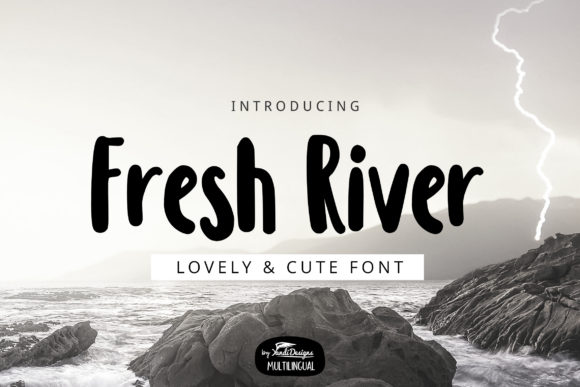
Introducing Fresh River Font: The Ultimate Urban Display Font
Are you tired of using the same old fonts in your designs? Look no further than Fresh River Font, a fun and urban styled display font that’s perfect for adding a touch of personality to your projects. With its friendly and quirky vibe, Fresh River Font is sure to make your designs stand out from the crowd.
What is Fresh River Font?
Fresh River Font is a display font designed to add a touch of urban flair to your designs. Its unique and quirky style makes it perfect for informal design ideas, such as posters, flyers, and social media graphics. The font is characterized by its bold and chunky letters, which are sure to grab attention and make your designs pop.
Key Features of Fresh River Font
- Urban Style: Fresh River Font has a distinctly urban feel, making it perfect for designs that require a modern and edgy look.
- Fun and Quirky: The font’s quirky style adds a touch of personality to your designs, making them more engaging and memorable.
- Display Font: Fresh River Font is designed specifically for display purposes, making it perfect for headlines, titles, and other attention-grabbing elements.
- Informal: The font’s informal style makes it perfect for casual designs, such as social media graphics, posters, and flyers.
Why Use Fresh River Font?
There are many reasons why Fresh River Font is a great choice for your designs. Here are just a few:
- Adds Personality: Fresh River Font adds a touch of personality to your designs, making them more engaging and memorable.
- Versatile: The font is versatile and can be used in a variety of design contexts, from posters and flyers to social media graphics and more.
- Easy to Read: Despite its bold and chunky style, Fresh River Font is easy to read, even at smaller sizes.
- Unique: Fresh River Font is a unique and distinctive font that will help your designs stand out from the crowd.
Design Ideas Using Fresh River Font
Fresh River Font is perfect for a variety of informal design ideas, including:
- Posters: Use Fresh River Font to create eye-catching posters for events, promotions, and more.
- Flyers: Add a touch of personality to your flyers with Fresh River Font, perfect for advertising events, products, and services.
- Social Media Graphics: Use Fresh River Font to create engaging social media graphics that will help your brand stand out.
- Logos: Fresh River Font can be used to create unique and memorable logos for your brand or business.
Tips for Using Fresh River Font
Here are a few tips for getting the most out of Fresh River Font:
- Use it Sparingly: Fresh River Font is a bold and attention-grabbing font, so use it sparingly to avoid overwhelming your designs.
- Experiment with Colors: Fresh River Font looks great in a variety of colors, so don’t be afraid to experiment and find the perfect color scheme for your design.
- Pair it with Other Fonts: Fresh River Font can be paired with other fonts to create a unique and visually appealing design.
Fresh River Font is a fun and urban styled display font that’s perfect for adding a touch of personality to your designs. With its friendly and quirky vibe, Fresh River Font is sure to make your designs stand out from the crowd. Whether you’re a designer, craft, or DIY enthusiast, Fresh River Font is a great choice for any informal design project.